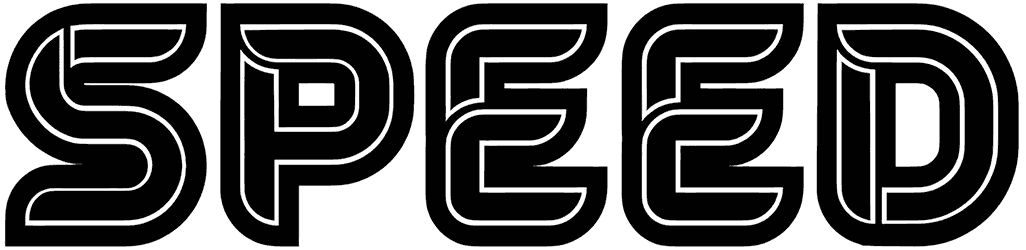
Speed Font
Meeting with this retro font that came up with the inline design. Speed font can convey a bold, energetic sense to your designs through two distinctive styles.
The racing font without lowercase letters and numbers can work well for designing automotive posters, sports ads, and logos for a new trendy spot. An easy-to-use and sports font that you can match with other fonts to increase the creativity of the project you are working on.